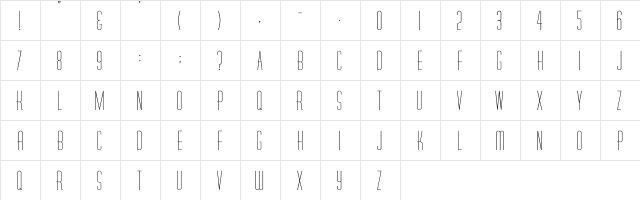
Diner-Regular Regular
Design Context for Diner-Regular Typeface
Diner-Regular takes a measured approach to typography — its balanced proportions and neutral character make it a reliable workhorse for both digital and print work.
Pro Tip: Use Diner-Regular in both headline and body roles to test its range before committing to a single application.